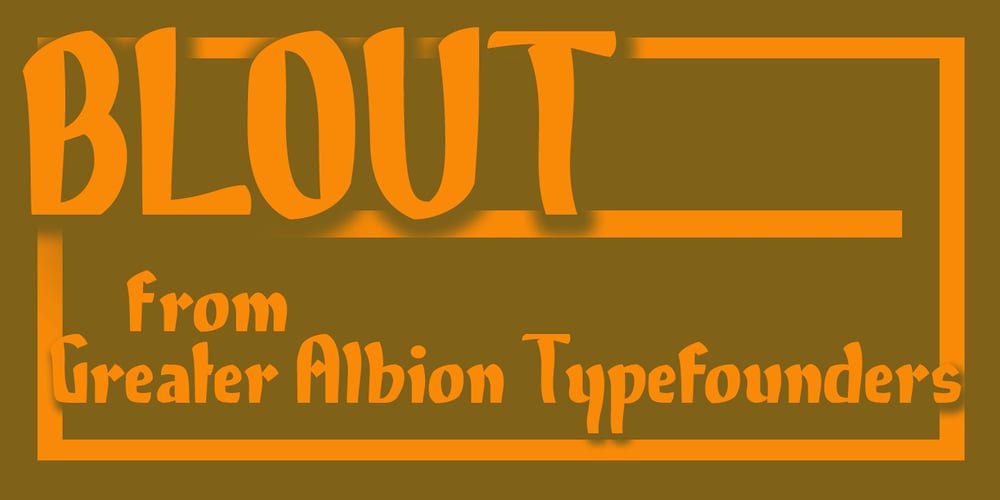
Blout
Blout font
Blout Font Family was designed by Paul James Lloyd and published by Greater Albion Typefounders. Blout contains 1 styles and family package options. Blout is the typeface for those who want to shout their message, but to do so with subtlety. It brings together elements of sans serif and late blackletter design, and is ideal for poster work.